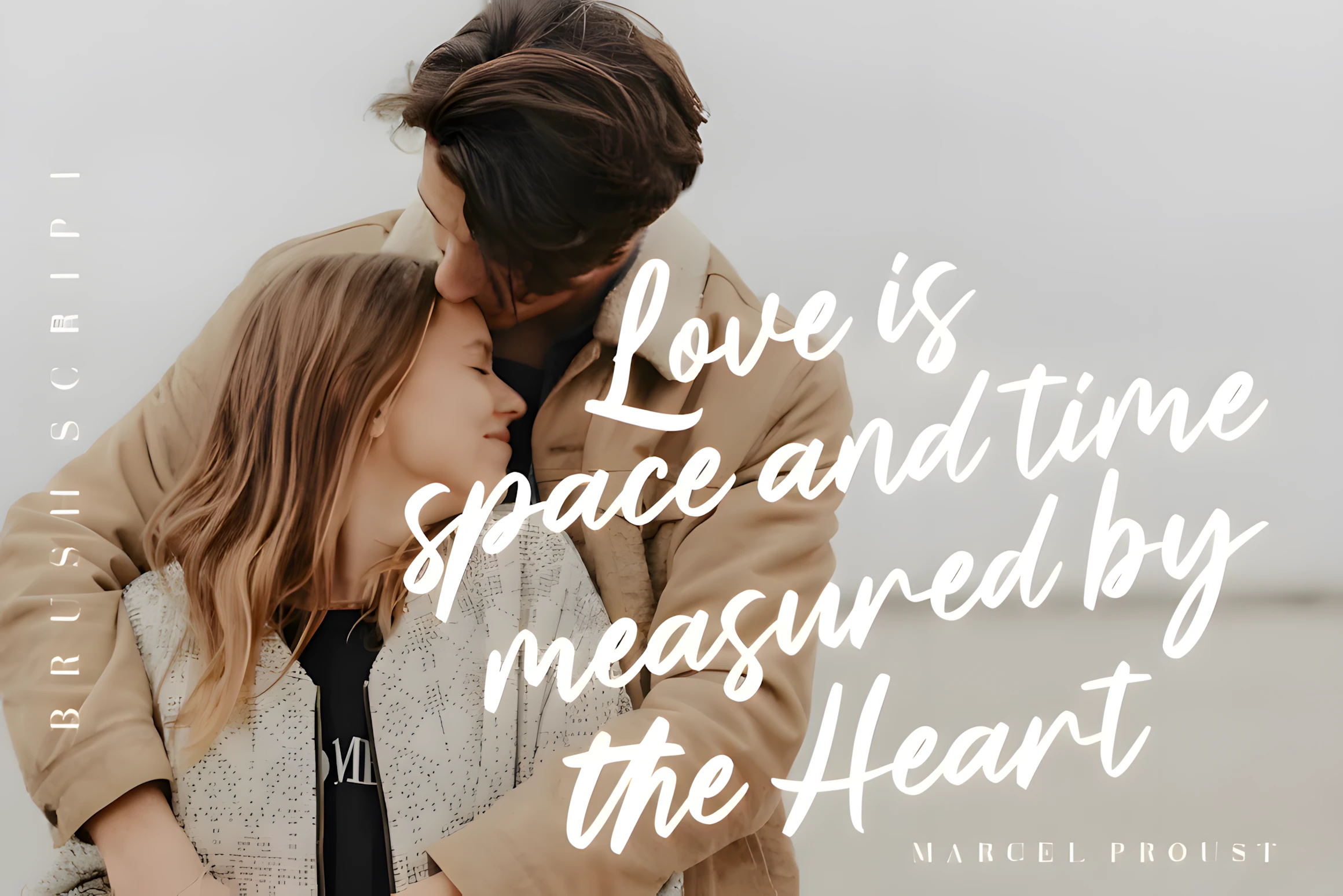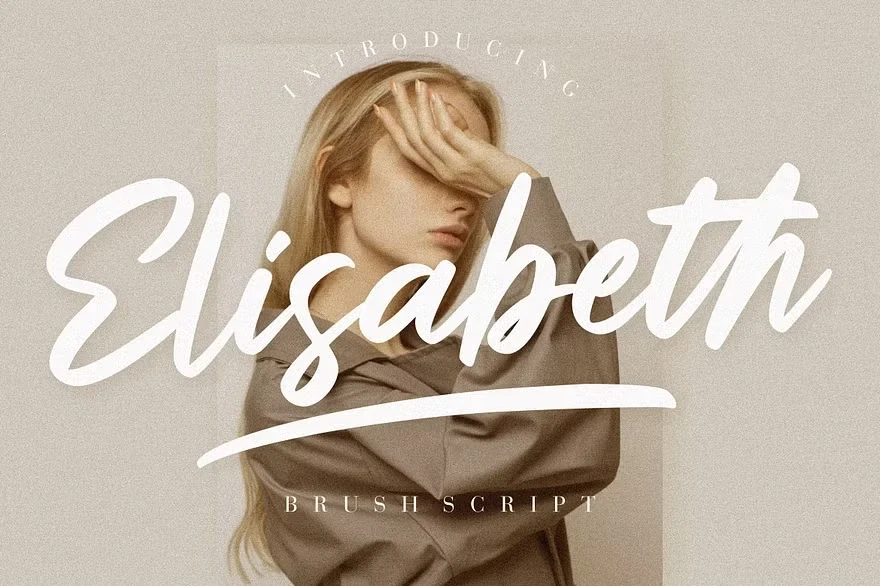
Elisabeth Font is a brushed script with a modern vibe and a clean, stylish look. It takes its inspiration from classic calligraphy. The strokes have a balanced weight, making Elisabeth feel smooth and expressive. It’s great for adding beauty to all kinds of projects.
This calligraphy font is ideal for stylish typography, branding, and upscale designs. It also works great as a signature font, giving logos and brands a handwritten, high-end feel. For events, Elisabeth is a lovely choice for wedding invites, adding romance and class to invitations and stationery.